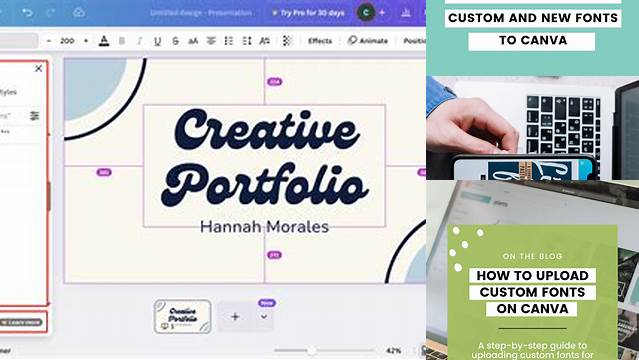
7. Best Practices for Using Fonts in Canva Designs
Now that you've got your fonts sorted, let's talk about best practices. Don't go overboard with too many fonts! Stick to a maximum of two or three fonts per design to maintain visual harmony. Use different font weights and styles to create visual interest. For example, use a bold font for headings and a lighter font for body text. Pay attention to font size and line height to ensure readability. Use appropriate font sizes for different elements of your design, and adjust the line height to create comfortable reading spaces. Always consider your target audience and the overall tone of your design when choosing fonts. A playful font might be perfect for a children's book but inappropriate for a business presentation. Use fonts to convey the desired message and evoke the right emotions. Before finalizing your design, always double-check your fonts for any errors or inconsistencies. Ensure that all fonts are correctly activated and that there are no missing glyphs or rendering issues. This will help you avoid any unpleasant surprises when your design is printed or published.
8. Understanding Font Licensing for Canva Use
Font licensing can be a tricky subject, but it's important to understand the basics to avoid any legal issues. Most fonts are licensed for specific uses, such as desktop publishing, web embedding, or app development. When using Adobe Fonts in Canva, you're typically covered under the desktop publishing license, which allows you to use the fonts to create designs for print and digital media. However, it's always a good idea to review the font license agreement to ensure that you're using the font in compliance with its terms. Pay attention to any restrictions on commercial use, redistribution, or modification. If you're using a font for a commercial project, make sure that the license allows for it. If you're unsure about the licensing terms, contact the font foundry or the font designer for clarification. Using fonts without the proper license can result in copyright infringement, which can lead to legal penalties. Always respect the intellectual property rights of font creators and adhere to the licensing terms to avoid any problems.
9. Optimizing Font Choices for Readability
Readability is key to effective design. Choose fonts that are easy to read, especially for body text. Avoid overly decorative or stylized fonts that can strain the eyes. Consider the font size, line height, and letter spacing to ensure that the text is comfortable to read. Use a sufficient contrast between the text and the background to improve readability. White text on a dark background or dark text on a light background is generally easier to read than low-contrast combinations. Test your designs on different devices and screen sizes to ensure that the text remains readable. What looks good on a large monitor might not be as clear on a small smartphone screen. Pay attention to the kerning and tracking of your fonts. Kerning refers to the spacing between individual letters, while tracking refers to the overall spacing between all letters in a word or phrase. Adjusting these settings can significantly improve the readability of your text. Use headings and subheadings to break up large blocks of text and make it easier for readers to scan and understand the content.
10. Creating a Consistent Font Palette for Your Brand
Consistency is essential for building a strong brand identity. Choose a font palette that reflects your brand's personality and values. Stick to a limited number of fonts (typically two or three) to maintain a cohesive look and feel. Use the same fonts across all your marketing materials, including your website, social media graphics, and print collateral. Develop a style guide that outlines the specific fonts, sizes, and colors to be used for different elements of your brand. This will help ensure consistency across all your designs. Consider the emotional impact of different fonts when creating your font palette. Some fonts evoke feelings of trustworthiness and reliability, while others convey creativity and innovation. Choose fonts that align with the desired emotional response. Regularly review your font palette to ensure that it remains relevant and effective. As your brand evolves, you may need to update your font palette to reflect your changing identity.
11. Using Adobe Fonts for Social Media Graphics in Canva
Social media graphics need to be eye-catching and engaging. Using Adobe Fonts can help you create visually appealing graphics that stand out from the crowd. Choose fonts that are legible at small sizes, as social media graphics are often viewed on small screens. Use bold fonts for headlines and captions to grab attention. Experiment with different font combinations to create a unique look. Use Canva's templates and design tools to quickly create professional-looking social media graphics. Customize the templates with your own fonts, colors, and images to align with your brand. Pay attention to the aspect ratio and dimensions of your social media graphics to ensure that they display correctly on different platforms. Use high-quality images and graphics to enhance the visual appeal of your designs. Regularly update your social media graphics with fresh content and designs to keep your audience engaged.
12. Incorporating Adobe Fonts into Presentation Designs
Presentation designs should be clear, concise, and visually appealing. Using Adobe Fonts can help you create professional-looking presentations that capture your audience's attention. Choose fonts that are easy to read from a distance, as presentation slides are often viewed on large screens. Use a consistent font palette throughout your presentation to maintain a cohesive look and feel. Use headings and subheadings to break up large blocks of text and make it easier for your audience to follow along. Use bullet points and numbered lists to present information in a clear and organized manner. Use visuals, such as images, charts, and graphs, to illustrate your points and make your presentation more engaging. Practice your presentation beforehand to ensure that you're comfortable with the content and delivery.
13. Creating Marketing Materials with Adobe Fonts in Canva
Marketing materials should be visually appealing and persuasive. Using Adobe Fonts can help you create marketing materials that grab attention and communicate your message effectively. Choose fonts that are consistent with your brand identity and target audience. Use bold fonts for headlines and calls to action to draw the reader's eye. Use Canva's templates and design tools to quickly create professional-looking marketing materials, such as brochures, flyers, and posters. Customize the templates with your own fonts, colors, and images to align with your brand. Pay attention to the layout and design of your marketing materials to ensure that they are visually appealing and easy to read. Use high-quality images and graphics to enhance the visual impact of your marketing materials. Proofread your marketing materials carefully to ensure that there are no errors or typos.
14. Designing Logos with Adobe Fonts in Canva
Logos are a crucial part of brand identity, and typography plays a significant role in logo design. While Canva isn't a dedicated logo design tool, you can still create effective logos using Adobe Fonts and Canva's design features. Choose fonts that are unique, memorable, and representative of your brand. Consider the shape and form of the letters when selecting a font for your logo. Experiment with different font combinations and typographic effects to create a distinctive logo. Keep your logo simple and scalable, so that it looks good at different sizes and in different contexts. Test your logo on different backgrounds and in different colors to ensure that it remains legible and effective. Get feedback from others on your logo design to ensure that it resonates with your target audience. Remember that logo design is a complex process, and it may take several iterations to arrive at a final design that you're happy with.
15. Typography Tips for Stunning Canva Designs
Typography is an art and a science, and mastering the basics can significantly improve the quality of your Canva designs. Use a visual hierarchy to guide the reader's eye through your design. Use different font sizes, weights, and styles to create visual interest and emphasize important elements. Pay attention to the spacing between letters, words, and lines to ensure readability. Use negative space effectively to create a clean and balanced design. Experiment with different font combinations to find a unique and visually appealing look. Use color strategically to enhance the impact of your typography. Avoid using too many fonts or typographic effects, as this can create a cluttered and confusing design. Practice typography regularly to develop your skills and intuition.
16. Font Pairing Strategies for Canva Projects
Font pairing involves combining two or more fonts in a design to create a harmonious and visually appealing look. Use a serif font for headings and a sans-serif font for body text, or vice versa. Choose fonts that have contrasting styles but complementary personalities. Consider the x-height of the fonts when pairing them. X-height refers to the height of the lowercase letters, and fonts with similar x-heights tend to pair well together. Use a font pairing tool or website to get inspiration and ideas. Experiment with different font combinations to find a look that suits your design. Avoid using fonts that are too similar, as this can create a monotonous and uninteresting design. Use a limited number of fonts (typically two or three) to maintain a cohesive look and feel.
17. Using Script Fonts Effectively in Canva
Script fonts are elegant and decorative fonts that can add a touch of sophistication to your designs. Use script fonts sparingly, as they can be difficult to read in large blocks of text. Use script fonts for headings, titles, and accents. Choose script fonts that are legible and easy to read. Avoid using overly ornate or stylized script fonts. Pair script fonts with simpler, more legible fonts to create a balanced look. Use script fonts to convey a sense of elegance, creativity, or romance. Consider the context and target audience when using script fonts. Experiment with different script fonts to find one that suits your design.
18. Choosing the Right Font Size for Different Design Elements
The right font size can make a big difference in the readability and impact of your designs. Use larger font sizes for headings and titles to draw attention. Use smaller font sizes for body text and captions to improve readability. Consider the viewing distance when choosing font sizes. Designs that will be viewed from a distance, such as posters and billboards, require larger font sizes than designs that will be viewed up close, such as brochures and flyers. Use a consistent font size for similar elements throughout your design to maintain a cohesive look and feel. Test your designs on different devices and screen sizes to ensure that the text remains legible. Adjust the font size as needed to optimize readability.
19. Kerning and Tracking Adjustments in Canva
Kerning and tracking are typographic adjustments that affect the spacing between letters. Kerning refers to the spacing between individual letters, while tracking refers to the overall spacing between all letters in a word or phrase. Adjusting kerning and tracking can improve the readability and visual appeal of your designs. Use kerning to fine-tune the spacing between letters that appear too close or too far apart. Use tracking to adjust the overall density of text. Increase tracking to create a more open and airy look, or decrease tracking to create a more compact and dense look. Use kerning and tracking subtly, as excessive adjustments can make your designs look unnatural. Experiment with different kerning and tracking settings to find what works best for your design.
20. Line Height and Leading for Optimal Readability in Canva
Line height, also known as leading, is the vertical space between lines of text. Adjusting the line height can significantly improve the readability of your designs. Use a line height that is slightly larger than the font size to create comfortable reading spaces. A general rule of thumb is to use a line height that is 120-150% of the font size. Increase the line height for longer blocks of text to improve readability. Decrease the line height for shorter blocks of text to create a more compact look. Consider the font style when adjusting the line height. Fonts with longer ascenders and descenders may require a larger line height. Test your designs on different devices and screen sizes to ensure that the text remains readable.
21. Color Psychology and Font Choices in Canva
Color psychology is the study of how colors affect human emotions and behavior. Choosing the right colors for your designs can enhance their impact and effectiveness. Consider the emotional associations of different colors when selecting fonts and backgrounds. Use colors that are consistent with your brand identity and target audience. Use contrasting colors to create visual interest and emphasize important elements. Use a limited number of colors to maintain a cohesive look and feel. Experiment with different color combinations to find what works best for your design. Use color psychology to create designs that are persuasive and engaging.
22. Creating Text Effects with Adobe Fonts in Canva
Canva offers a variety of text effects that can add visual interest and personality to your designs. Experiment with different text effects, such as shadows, outlines, and glows. Use text effects sparingly, as excessive use can make your designs look cluttered and overwhelming. Use text effects to emphasize important elements and create visual interest. Choose text effects that are consistent with your brand identity and target audience. Use text effects to convey a specific mood or feeling. Test your designs with different text effects to see what works best.
23. Using Gradients with Adobe Fonts in Canva
Gradients are smooth transitions between two or more colors. Using gradients with Adobe Fonts can create visually appealing and dynamic designs. Use gradients to add depth and dimension to your text. Choose gradient colors that are harmonious and complementary. Use gradients subtly, as excessive use can make your designs look overwhelming. Use gradients to emphasize important elements and create visual interest. Experiment with different gradient angles and positions to find what works best for your design. Consider the context and target audience when using gradients.
24. Creating Mockups with Adobe Fonts in Canva
Mockups are realistic representations of your designs in a real-world context. Creating mockups with Adobe Fonts can help you visualize how your designs will look in different settings. Use mockups to showcase your designs to clients or customers. Use mockups to test different design variations. Use mockups to create marketing materials and promotional content. Use mockups to get feedback on your designs. Experiment with different mockup styles and settings to find what works best for your designs. Consider the context and target audience when creating mockups.
25. Accessibility Considerations When Using Adobe Fonts in Canva
Accessibility refers to the practice of designing designs that are usable by people with disabilities. When using Adobe Fonts in Canva, it's important to consider accessibility to ensure that your designs are inclusive and usable by everyone. Use fonts that are legible and easy to read for people with visual impairments. Use sufficient contrast between the text and the background to improve readability for people with low vision. Avoid using overly decorative or stylized fonts that can be difficult to read. Use alternative text for images to provide descriptions for people who cannot see them. Use headings and subheadings to create a clear and logical structure for your designs. Test your designs with assistive technologies, such as screen readers, to ensure that they are accessible. Follow accessibility guidelines and standards, such as WCAG, to create inclusive designs.
26. Embedding Adobe Fonts in Canva for Web Projects
When creating web projects with Canva, you may want to embed Adobe Fonts to ensure that your designs look consistent across different devices and browsers. However, Canva does not directly support embedding Adobe Fonts. Instead, you can use Canva to create the design and then export it as an image or PDF. Then, you can use HTML and CSS to embed the Adobe Fonts into your website. This requires some technical knowledge, but it allows you to use your favorite Adobe Fonts in your web projects. Alternatively, you can use Canva's built-in fonts or upload custom fonts that are web-safe. Consider the licensing terms of the Adobe Fonts when embedding them in your web projects. Make sure that you have the necessary permissions to use the fonts for web embedding.
27. Exporting Canva Designs with Adobe Fonts
When exporting Canva designs with Adobe Fonts, it's important to choose the correct file format and settings to ensure that the fonts are preserved and displayed correctly. If you're exporting your design as a PDF, make sure that the fonts are embedded in the PDF file. This will ensure that the fonts are displayed correctly, even if the recipient does not have the Adobe Fonts installed on their computer. If you're exporting your design as an image, such as a JPEG or PNG, the fonts will be rasterized, which means that they will be converted into pixels. This can result in a loss of quality, especially if the image is scaled up. To avoid this, try to export your design at the highest possible resolution. Alternatively, you can use a vector-based file format, such as SVG, which will preserve the fonts as vectors, allowing them to be scaled up without any loss of quality. However, not all applications support SVG files, so it's important to choose a file format that is compatible with your intended use.
28. Collaborating on Canva Designs with Adobe Fonts
Canva makes it easy to collaborate on designs with others. When collaborating on Canva designs with Adobe Fonts, it's important to ensure that all collaborators have access to the same fonts. If you're using Adobe Fonts that are not available in Canva's font library, you'll need to share the font files with your collaborators. Alternatively, you can use Canva's Brand Kit feature to upload the Adobe Fonts and share them with your team. This will ensure that everyone has access to the same fonts and that the designs look consistent across all devices. When collaborating on Canva designs, it's also important to communicate clearly about font choices and design decisions. This will help avoid any confusion or misunderstandings and ensure that the final design meets everyone's expectations.
29. Advanced Typography Techniques in Canva
Once you've mastered the basics of typography, you can start exploring more advanced techniques to create truly stunning designs. Experiment with different typographic effects, such as layering, masking, and clipping. Use textures and patterns to add depth and dimension to your text. Create custom letterforms and logos using Canva's design tools. Use typography to create visual metaphors and convey complex ideas. Use typography to create a sense of rhythm and movement in your designs. Use typography to create a unique and memorable brand identity. The possibilities are endless!
30. Staying Updated on Font Trends and Design Best Practices
Typography is a constantly evolving field, and it's important to stay updated on the latest font trends and design best practices. Follow design blogs and websites to learn about new fonts and typographic techniques. Attend design conferences and workshops to network with other designers and learn from experts. Experiment with new fonts and techniques to expand your skills and knowledge. Stay curious and never stop learning. The more you know about typography, the better equipped you'll be to create stunning and effective designs. Understanding current trends will help you keep your designs fresh and engaging.